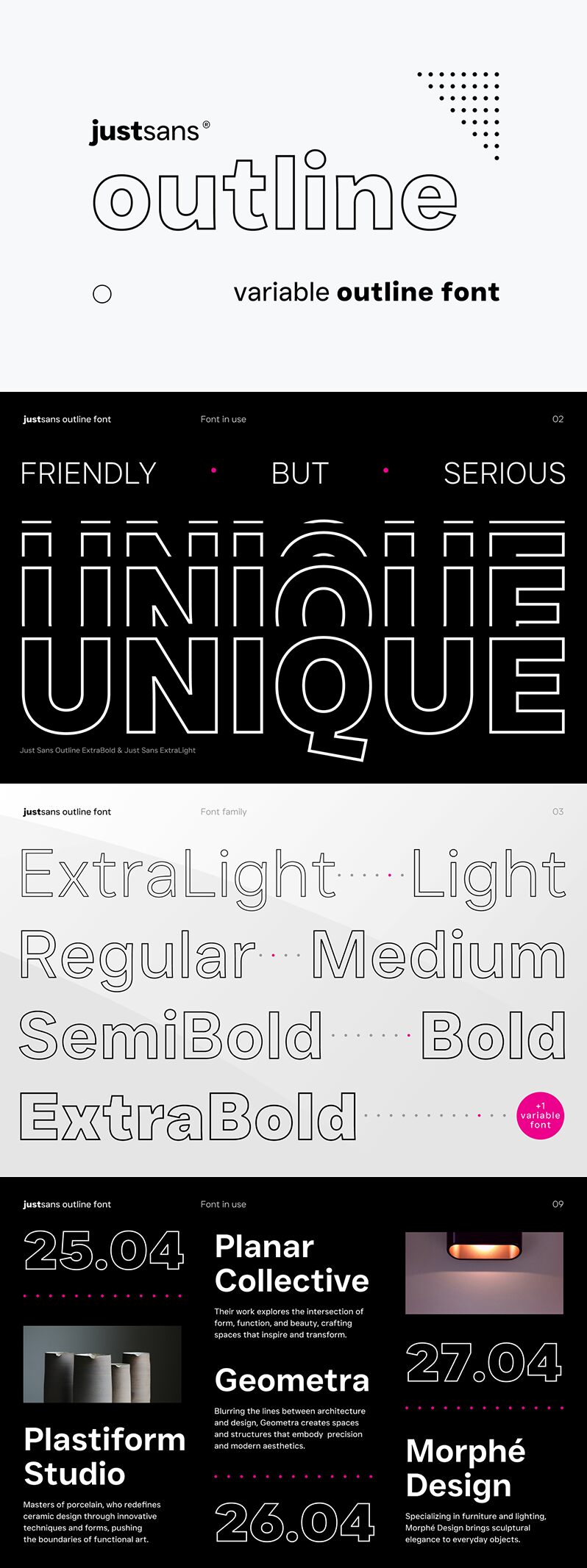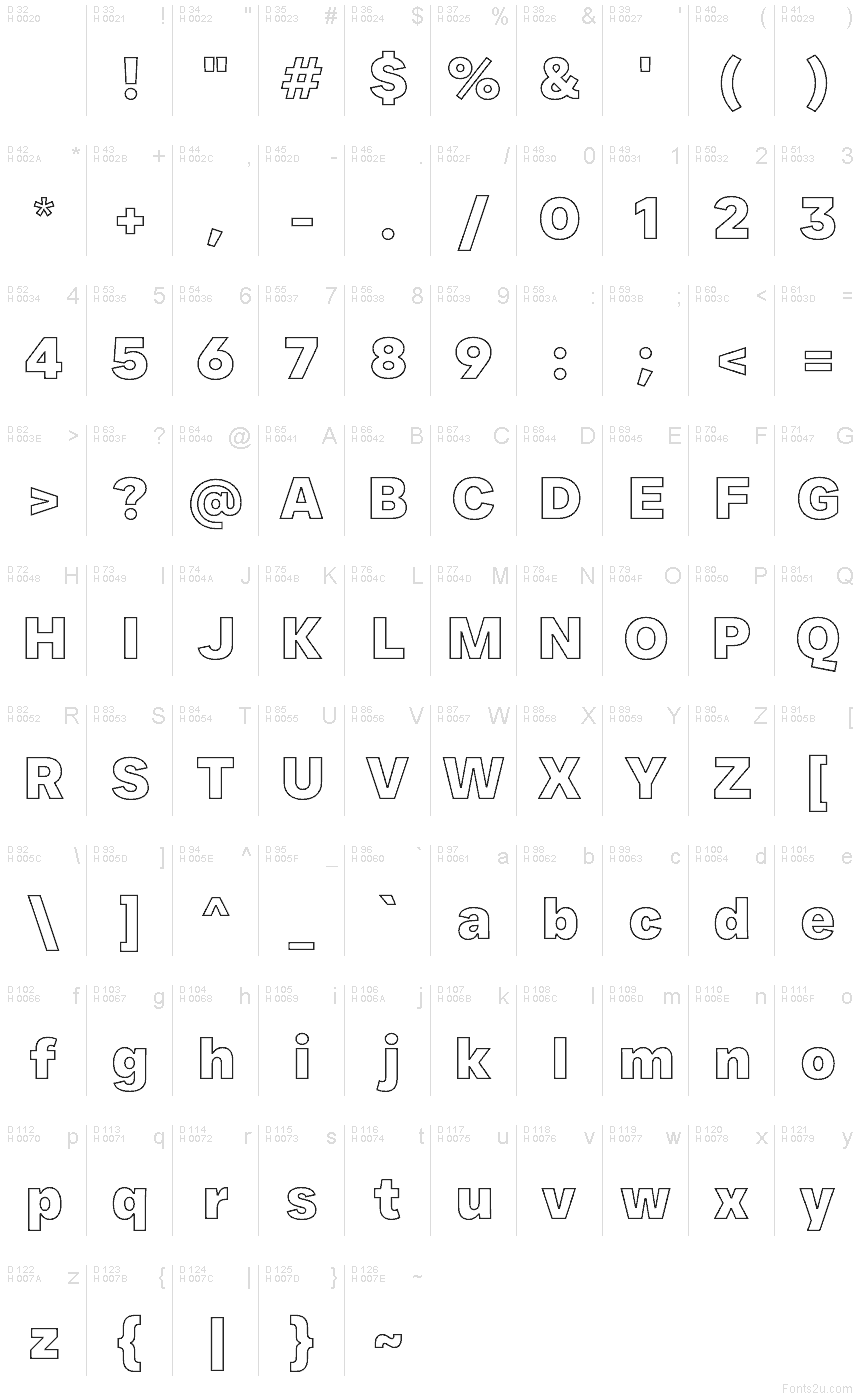
JUST Sans Outline ExBold
JUST Sans Outline ExBold font by Jacob Cass is a bold, outlined sans serif font with clean and minimalistic aesthetics. Expressing modernist warmth, geometric clarity, and a distinctive edge, the typeface stays crisp and elegant. Pair it with JUST Sans, or use alone for posters and digital screens.
The free display font suits logos, headings on the web (blogs included), social media designs, architectural spaces visuals, marketing campaign promotions (advertisements and commercials), branding projects (product packaging designs included), magazine covers or any other type of typography where an increased contrast is needed.
JUST Sans Outline is property of Just Creative. Typeface Just SANS is developed by Eugene Tantsurin of Groteskly Yours in 2025.
JUST Sans Outline was designed by Eugene Tantsurin for JUST Creative in 2025. JUST Sans is a modern sans serif typeface developed together with Jacob Cass.